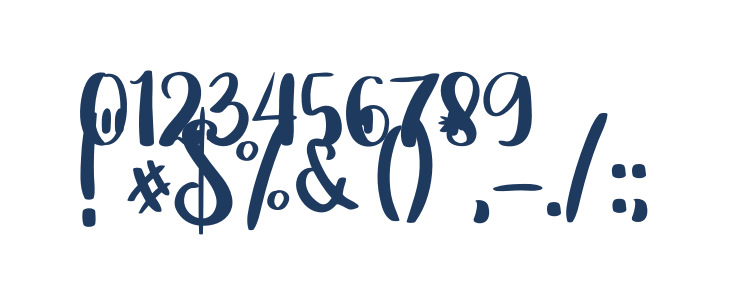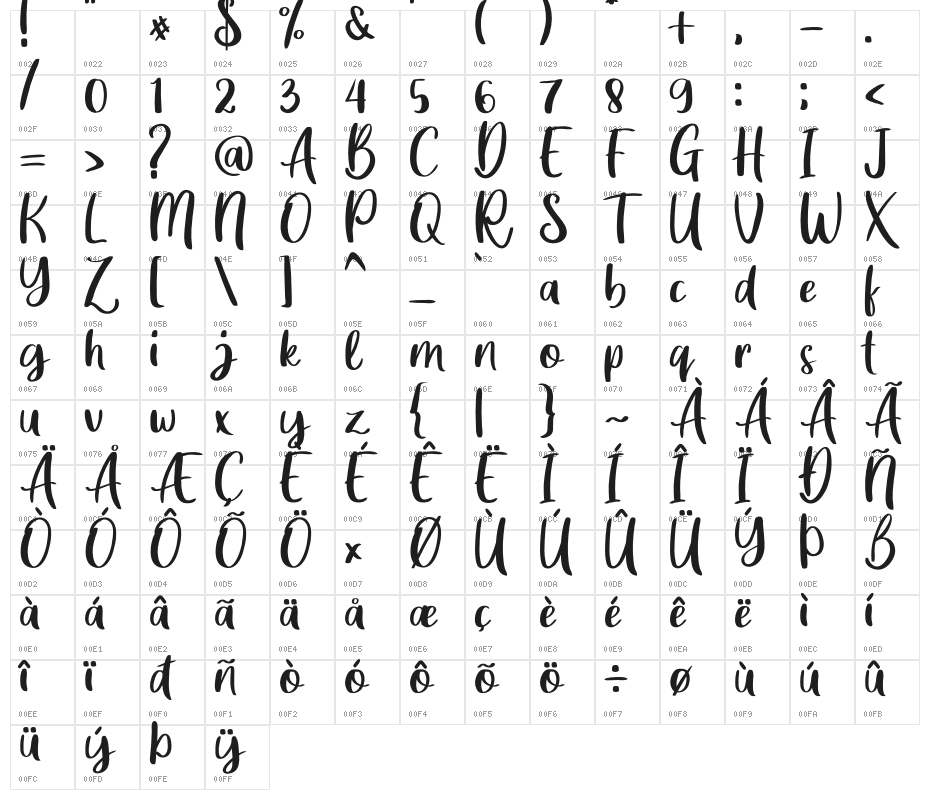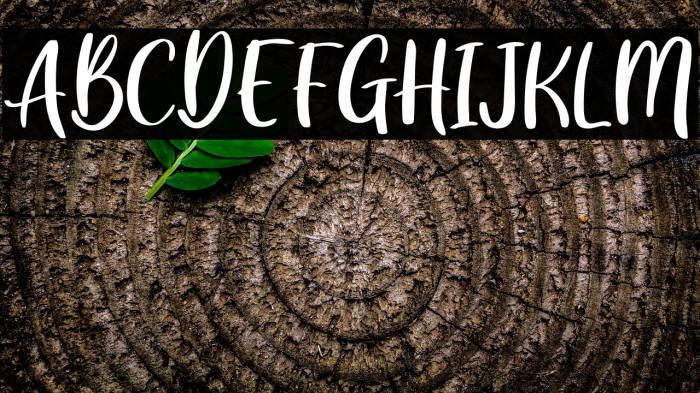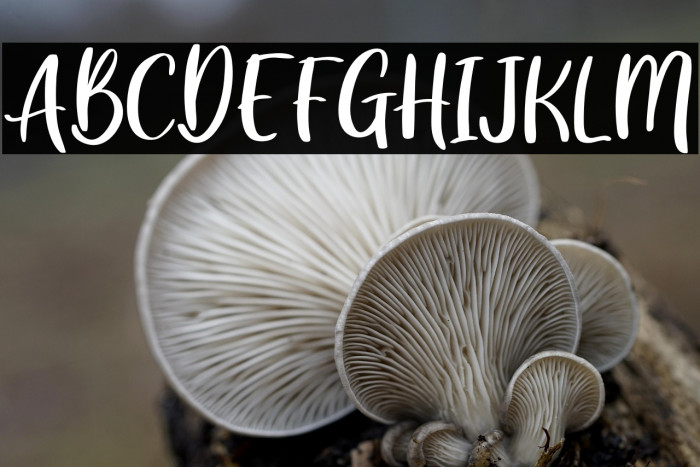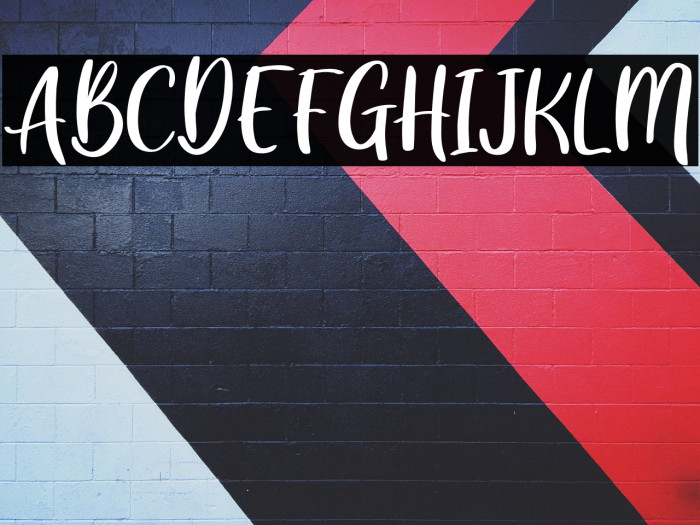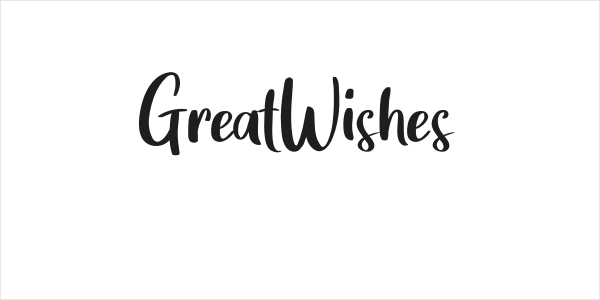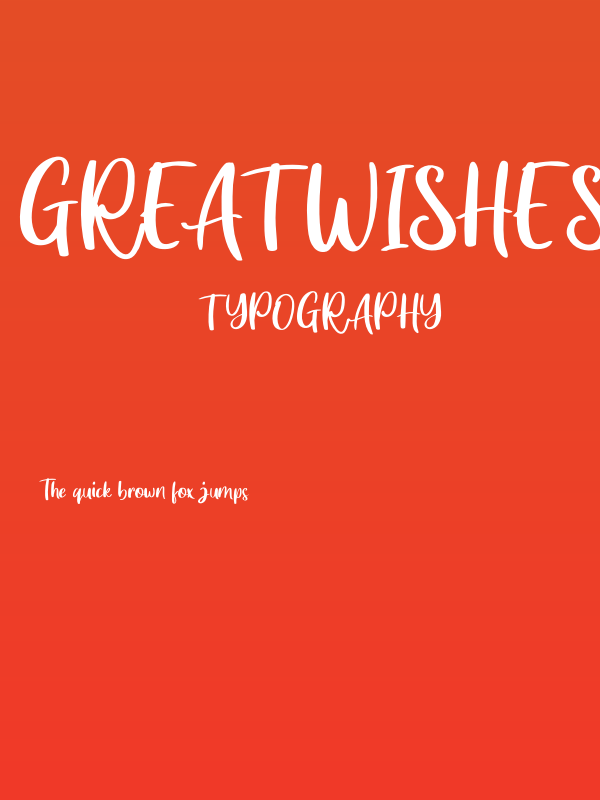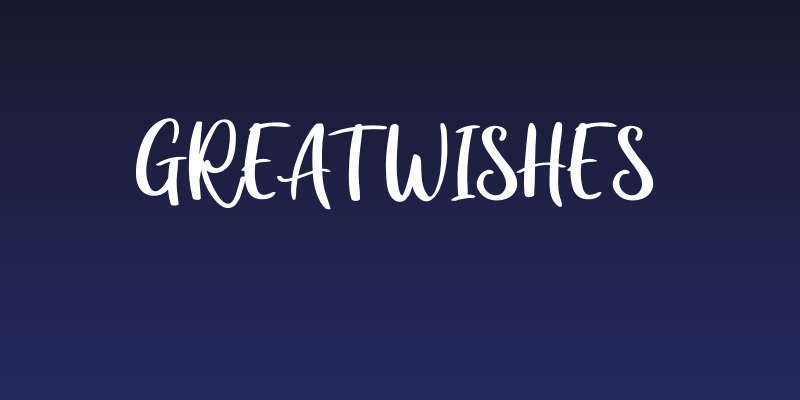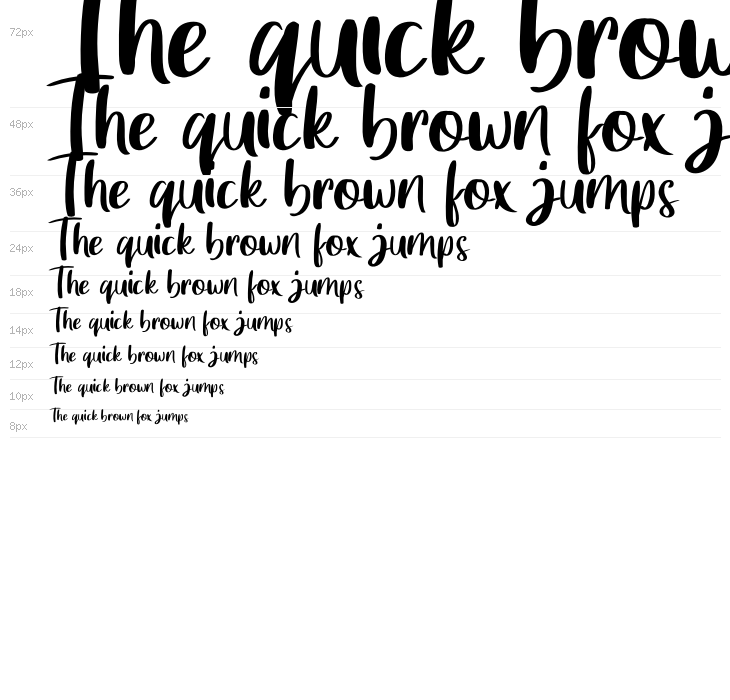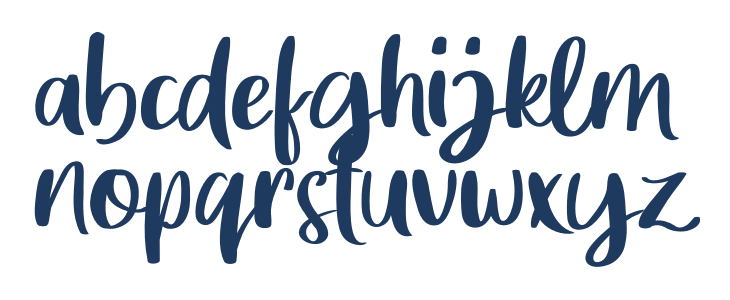
GreatWishes Font
GreatWishes Description
This font features a lively and expressive handwritten style, characterized by its fluid and dynamic strokes. The letters have a playful and casual appearance, with varying thickness that adds a sense of movement and energy. The uppercase letters are bold and prominent, while the lowercase letters maintain a consistent flow, enhancing readability. The numerals and special characters are crafted with the same attention to detail, ensuring a cohesive look across all elements. This font's unique charm makes it suitable for projects that require a personal and informal touch.